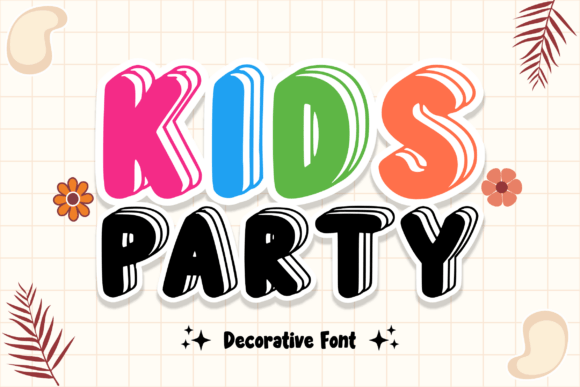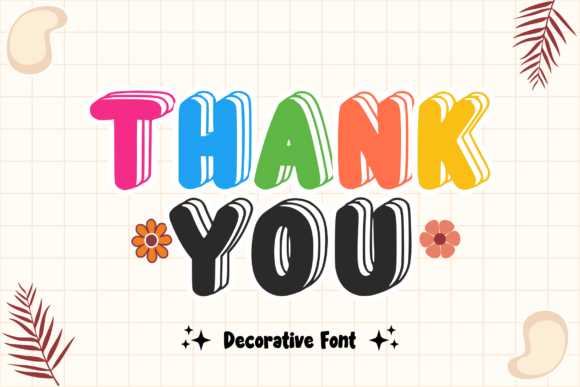
Baby Craft Font: The Ultimate Choice for Cute and Modern Designs
Are you a designer, crafter, or DIY enthusiast looking for a font that can add a touch of cuteness and modernity to your projects? Look no further than the Baby Craft Font! This adorable font is perfect for creating sublimation designs for t-shirts, mugs, tote bags, animations, comic titles, and more.
What is Baby Craft Font?
Baby Craft Font is a unique and creative typeface designed specifically for children’s craft projects. Each character is carefully crafted to be cute and easily recognizable, making it perfect for designs that require a playful and youthful touch.
Key Features of Baby Craft Font
- Cute and Modern Design: The Baby Craft Font boasts a modern and cute design that is sure to capture the attention of your audience.
- Easily Recognizable Characters: Each character in the font is designed to be easily recognizable, making it perfect for use in animations, comic titles, and other designs where clarity is key.
- Perfect for Sublimation Design: The font is optimized for use in sublimation design, making it ideal for creating custom t-shirts, mugs, tote bags, and more.
- Versatile: The Baby Craft Font can be used in a wide range of projects, from craft designs to digital projects, and everything in between.
Inspiration for Your Next Project
The Baby Craft Font is perfect for a wide range of projects, including:
- Custom T-Shirts: Create adorable custom t-shirts for kids and adults alike using the Baby Craft Font.
- Mugs and Water Bottles: Add a touch of cuteness to your mugs and water bottles with the Baby Craft Font.
- Tote Bags: Design custom tote bags for kids and adults using the Baby Craft Font.
- Animations and Comic Titles: Use the Baby Craft Font to create engaging animations and comic titles that are sure to capture the attention of your audience.
Why Choose Baby Craft Font?
There are many reasons why you should choose the Baby Craft Font for your next project. Here are just a few:
- Unique and Creative: The Baby Craft Font is a unique and creative typeface that is sure to set your designs apart from the crowd.
- Easily Customizable: The font is easily customizable, making it perfect for use in a wide range of projects.
- High-Quality: The Baby Craft Font is a high-quality font that is designed to produce crisp and clear results.
In conclusion, the Baby Craft Font is a cute and modern children’s craft font that is perfect for a wide range of projects. With its easily recognizable characters and versatile design, it’s the perfect choice for designers, crafters, and DIY enthusiasts. So why wait? Download the Baby Craft Font today and start creating your next project!